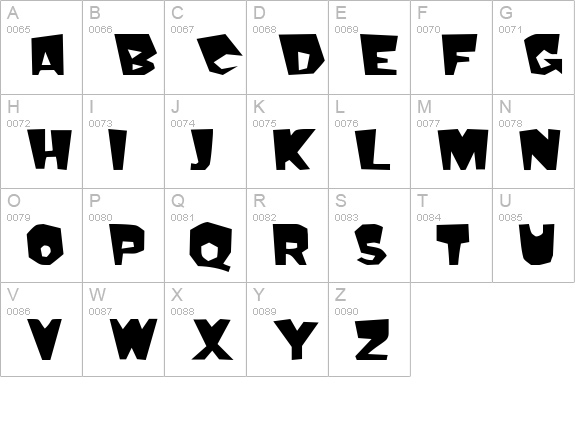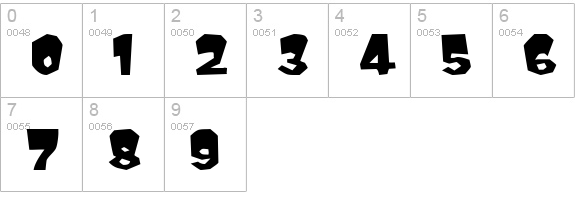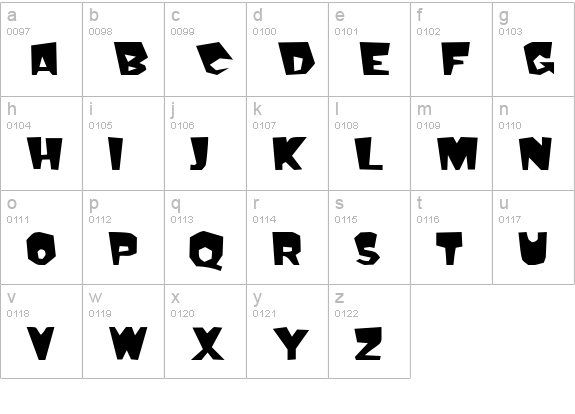
Mondo Bold is a strong, high-contrast variant in the Mondo typeface family \xE2\x80\x94 well suited to headlines, attention-grabbing titles, and strong calls-to-action.
Mondo Bold is a striking and dynamic font that commands attention with its bold and powerful presence. Its thick, heavy strokes make a statement in any design project, whether it be for a bold headline, eye-catching poster, or impactful logo. The strong and modern aesthetic of Mondo Bold exudes confidence and authority. Best of all, Mondo Bold is available for free download at FontsMarket.com. This means you can easily access this impressive font to enhance your creative projects without any cost. Utilize Mondo Bold to elevate your designs and make a lasting impression with its bold and impactful style. Download Mondo Bold today and unleash its strength and boldness in your next design endeavor.